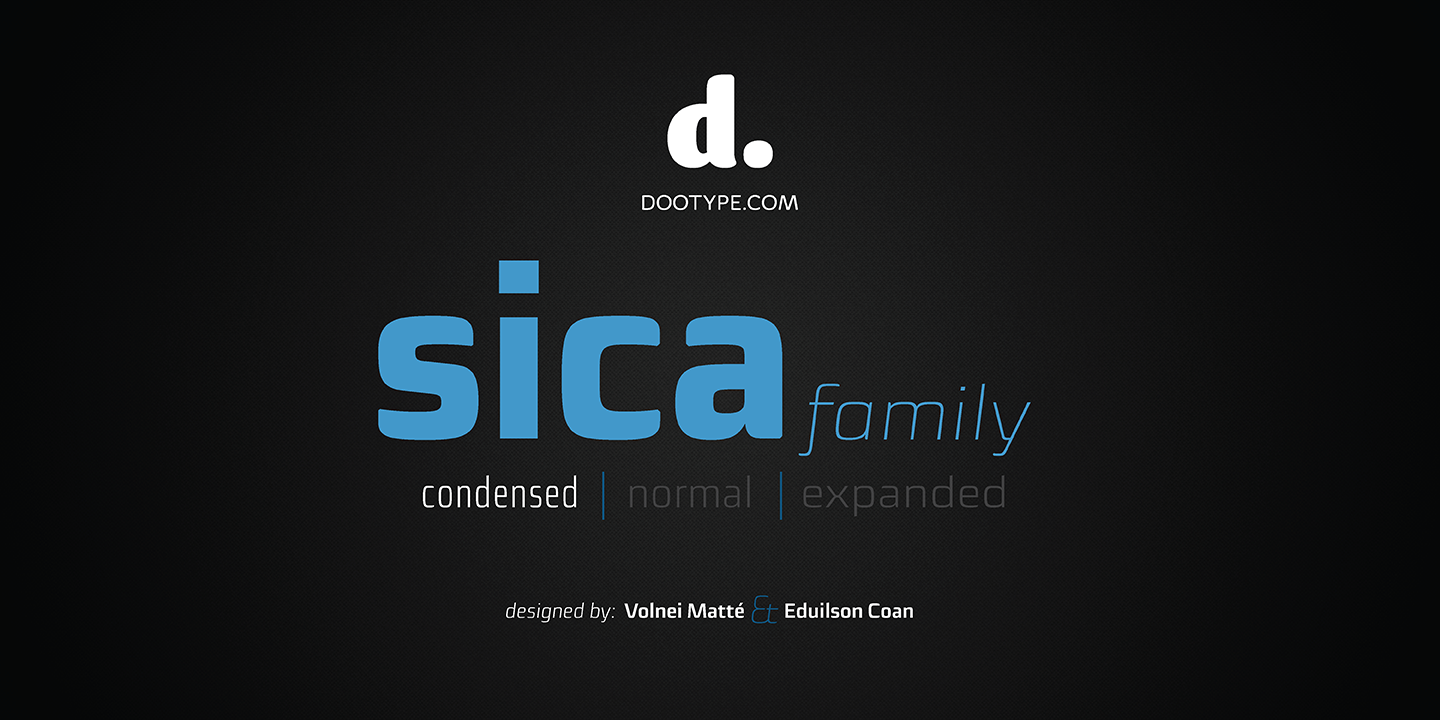
Sica Condensed Font is a sleek, modern sans-serif typeface designed for high-impact visual communication. It’s perfect for editorial layouts, magazine headlines, posters, minimalist branding, web interfaces, and even tech startups looking to project a cutting-edge identity.
What makes Sica Condensed Font Free Download so exciting is its ultra-clean aesthetic and compact letterforms, which save space without sacrificing legibility. Its sharp geometry and precise alignment create a futuristic vibe that commands attention while maintaining elegance and functionality.
The Sica Condensed Font family includes weights like Light, Regular, Bold, and Black, each with matching italics. These variations provide versatility across both print and digital platforms, making it a go-to choice for designers who want consistency and style.
From mobile UI designs to modern editorial spreads, Sica Condensed Font Free Download empowers your projects with clarity and sophistication. If you're after a font that blends modern minimalism with punchy personality, Sica Condensed will become a core weapon in your design arsenal.